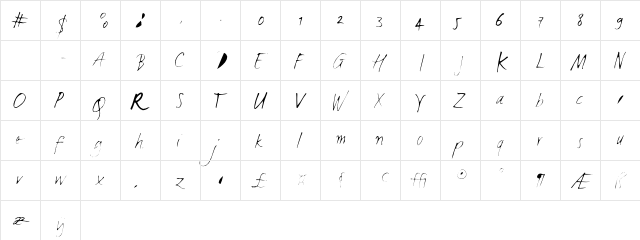
LucasHandFeetUltraLight Regular Font Preview
LucasHandFeetUltraLight Regular
LucasHandFeetUltraLight Regular Font Details
Design Context for LucasHandFeetUltraLight Typeface
LucasHandFeetUltraLight flows with the natural rhythm of handwritten lettering, making it ideal for designs that call for warmth and personal expression. Its slender proportions lend an understated elegance to any composition.
Font Pairing: Combine LucasHandFeetUltraLight with a simple geometric sans for maximum contrast — the tension between flowing curves and clean structure is a classic typographic pairing.
Pro Tip: Use LucasHandFeetUltraLight for short runs of text — names, titles, or taglines. Extended body copy in script faces tires the eye quickly.